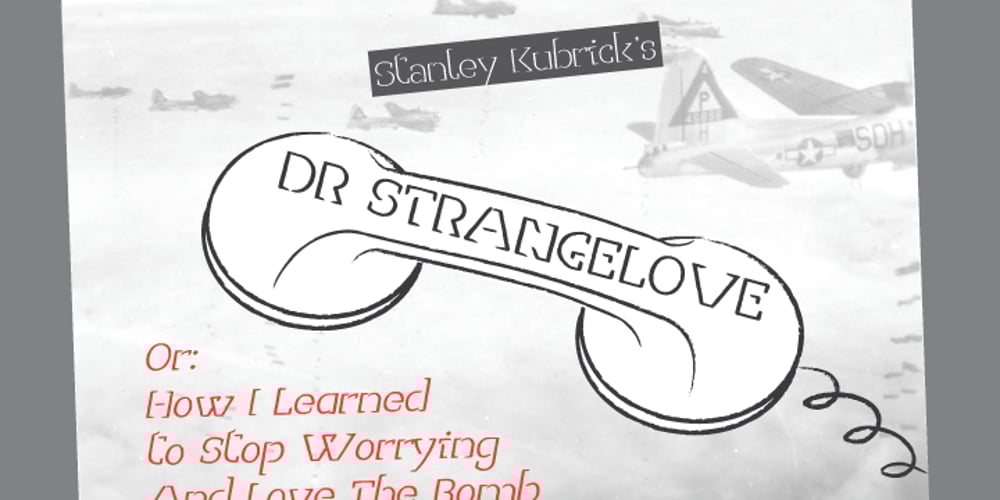
Sofia City Font Family was designed by Boris Nikolaev Marinov and published by Evolutionfonts. Sofia City contains 4 styles and family package options. Sofia City is a decorative hand-drawn family that can be used on both formal and informal occasions. It has a dual personality: One time it looks like unfinished contours of a sans serif, and the other – like a very thin serif. The family is named after the city of Sofia – the capital of Bulgaria, and my hometown. Sofia City comes in two versions – “Pencil” and “Ink” each with full character set and true italics. Also there is a free demo version (capital letters only).